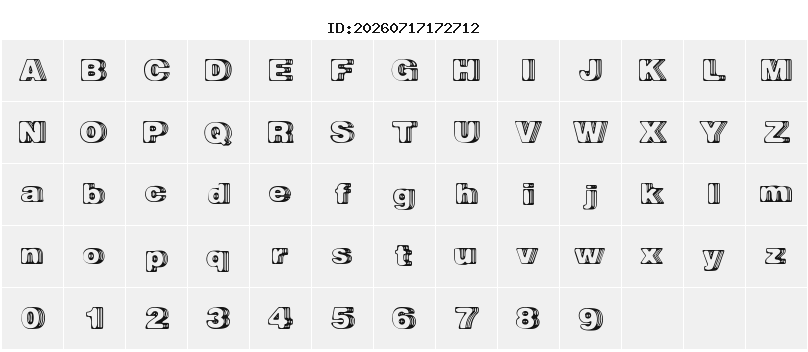
Big Designer Preview
• Font Name: Big Designer
• Designer: Woodcutter Manero
About Big Designer.ttf
Big Designer.ttf is a modern, elegant sans-serif font designed for ultimate readability and visual harmony. Perfect for branding, headlines, web design, and print materials.